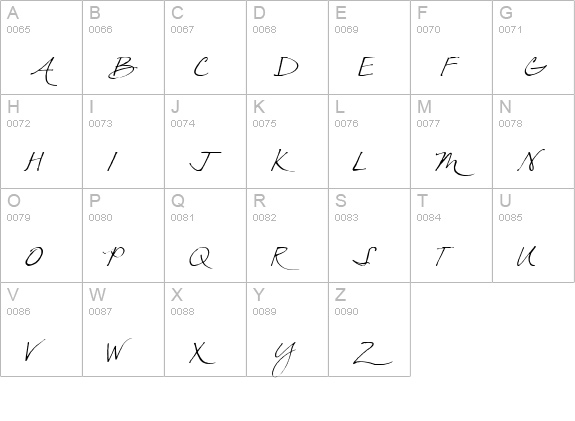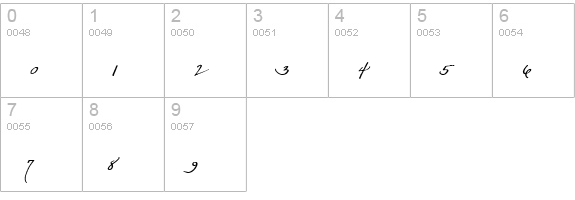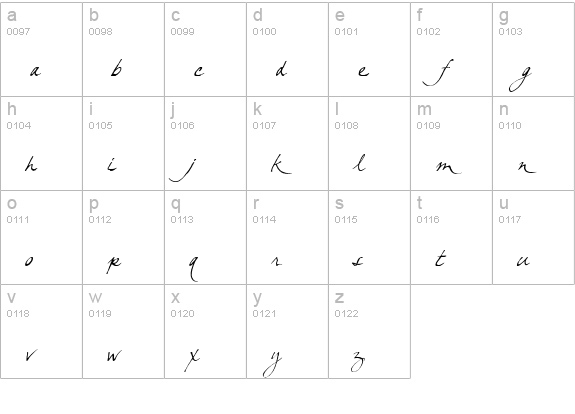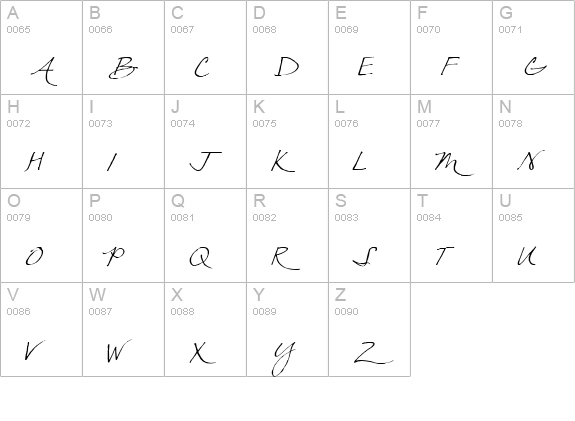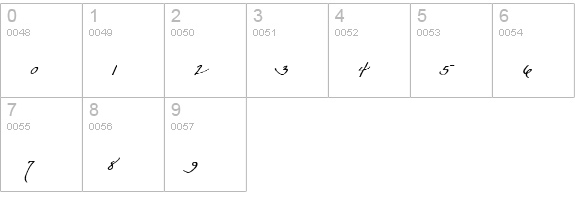
CK Bella Font Details
Introducing CK Bella font, a charming and elegant typeface that exudes sophistication and style. With its delicate curves and graceful lines, CK Bella is perfect for adding a touch of luxury to your designs. This versatile font can be used for a variety of projects, from invitations and wedding stationery to branding and packaging. Best of all, CK Bella is available for free download at FontsMarket.com. Whether you're a seasoned designer looking to add a new font to your collection or a hobbyist looking to spruce up your projects, CK Bella is the perfect choice. Don't miss out on this beautiful font - download it today and add a touch of elegance to your designs.